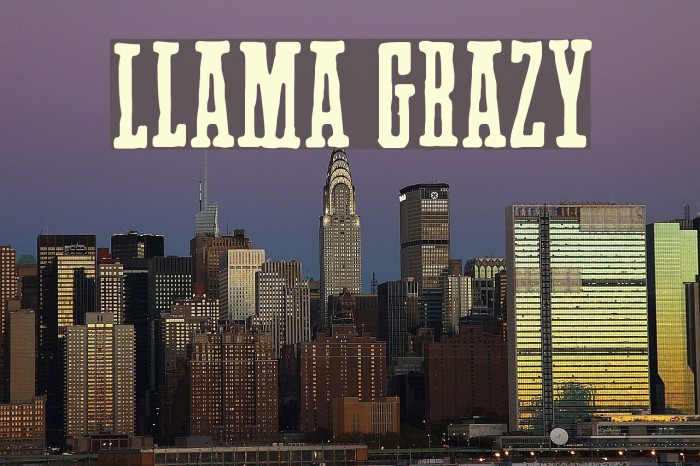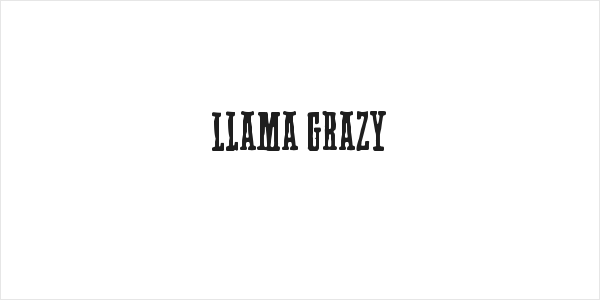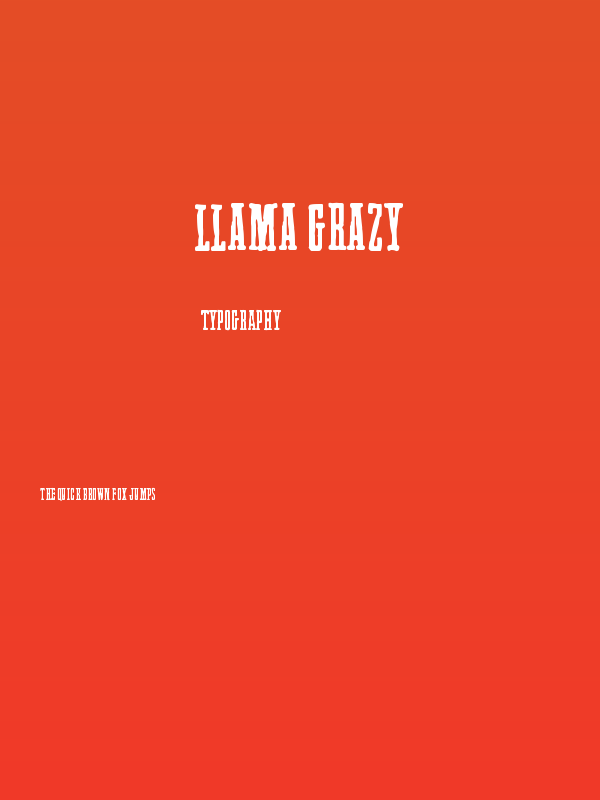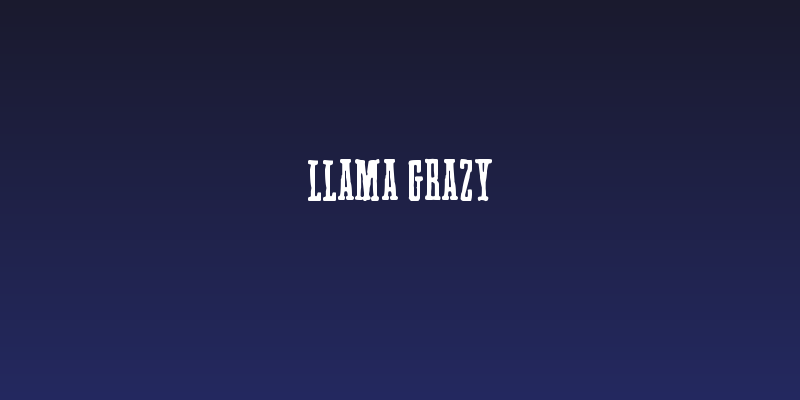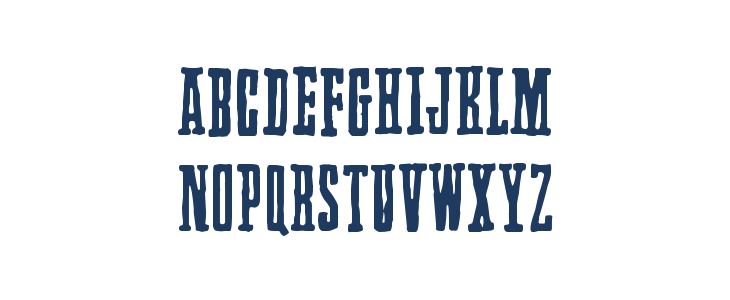
Llama Grazy Font
Llama Grazy Description
This font features a bold and robust design with a distinctly vintage flair. The characters are heavily weighted, with thick strokes and a slightly condensed appearance. The serifs are pronounced, adding to the overall boldness and making each letter stand out prominently. The uppercase and lowercase letters maintain a consistent style, with a rugged texture that gives the font a handcrafted feel. The numbers and special characters follow the same design principles, ensuring uniformity across all glyphs. This font is ideal for creating impactful headlines and titles, where a strong visual presence is required.
| Proposed Projects | Ideal for vintage-themed posters, branding projects, logos, and signage that require a strong, impactful typeface. |